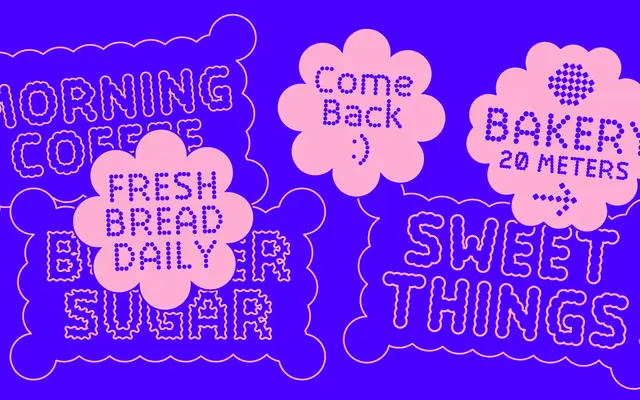
Biscottini
A modular dot display family built on a humanist sans skeleton, where circular dots swell from thin strokes to bold blobs across seven weights and four decorative subfamilies.
Designed by Caffè Design with Zetafonts' Cosimo Lorenzo Pancini and Mario De Libero, Biscottini constructs its letterforms from circular dots that grow and merge as weight increases from Thin to ExtraBold. A variable font controls dot size and shape precisely, while four additional subfamilies swap the dots for stars (Sprinkle), square bites (BitBite), glazed blobs (Glaze) and soft fluid forms (Granny). The family covers 196 languages across Latin script and is aimed at food branding, wayfinding and motion graphics.
A display typeface built on a modular system of circular dots arranged on a humanist sans-serif skeleton; the dots swell and merge as weight increases, placing it firmly in the display category with a pixel-art and modular modernist flavour.